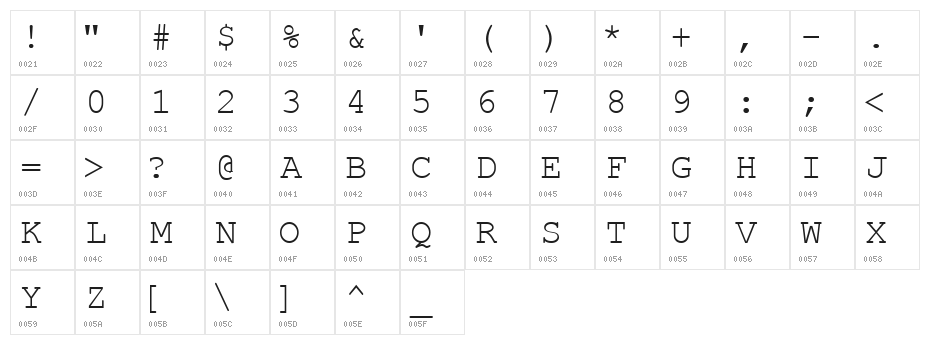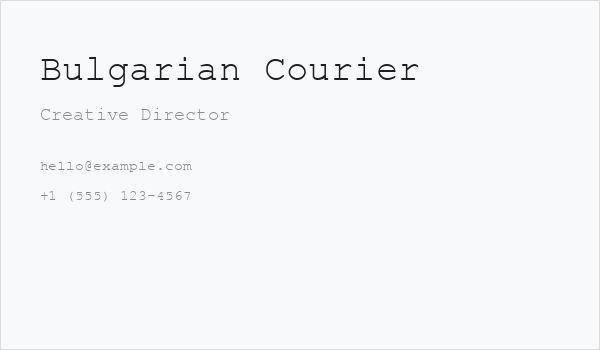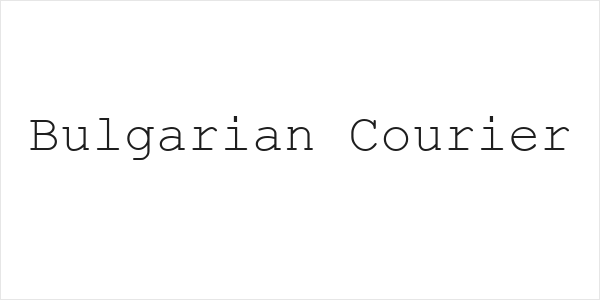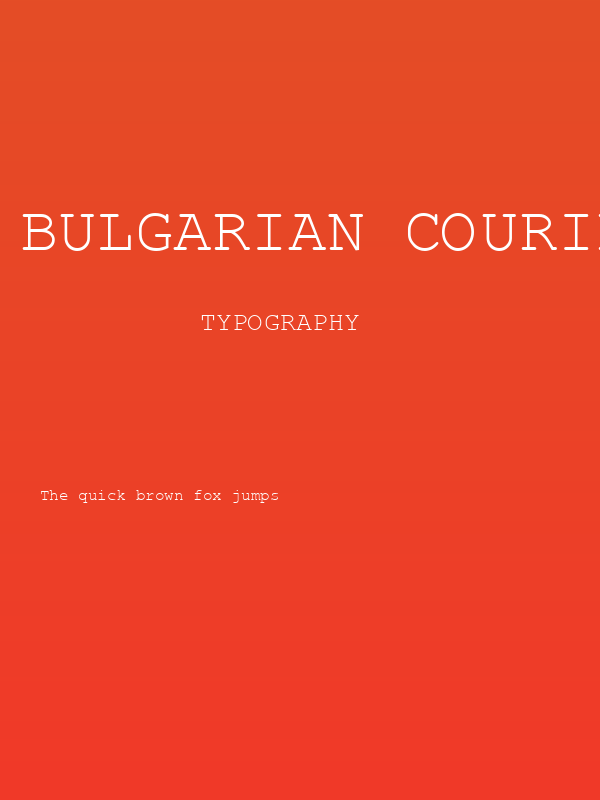
Bulgarian Courier Font
Bulgarian Courier Description
This typeface features a monospaced design, characterized by its uniform spacing and consistent width across all characters. The letters exhibit a clean and straightforward aesthetic, with rounded edges and a slight serif touch that adds a classic feel. The numerals and punctuation marks maintain the same monospaced structure, ensuring alignment and readability. This font is ideal for coding, technical documents, and any project requiring precise alignment. Its simplicity and clarity make it suitable for both digital and print media.
Overall StyleClassic
Use CaseCoding, Technical documents
Proposed ProjectsIdeal for coding environments, technical documentation, and any project requiring precise text alignment.